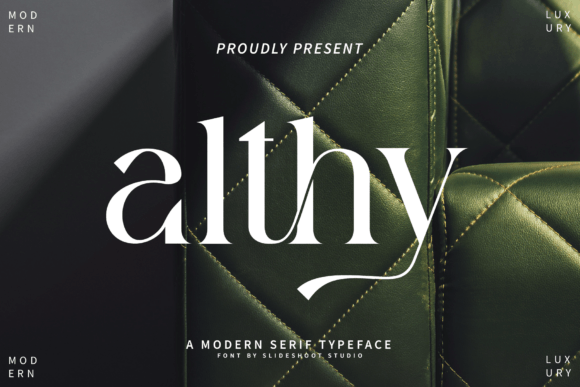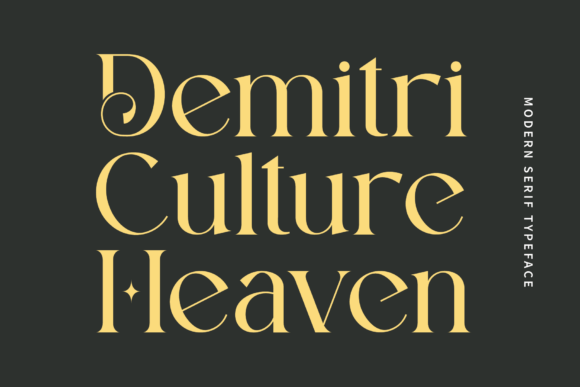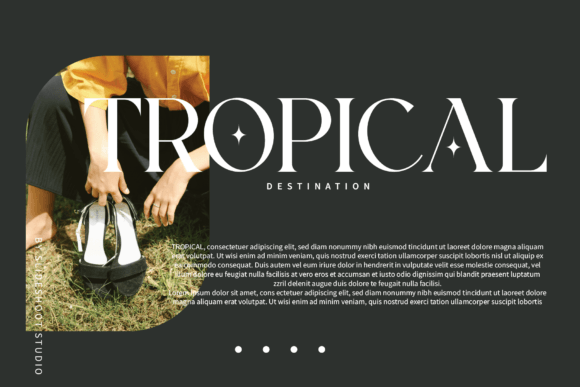
Althy Font: Elegant Serif Typography for Modern Logo Design
About the Althy Font
Presenting Althy Font, a unique and stylish typeface that will make your work stand out. Althy Serif is a modern and classy Serif font, he has a beautiful character. It is suitable to be combined with invitation card design, destroyer logo, film title, film name, business card, book title, name brand and various other designs. Althy Serif is a fine serif font that emits sophistication and elegance. Change and stubborn that makes this perfect font partner for any project.
Althy Serif’s elegant and sophisticated nature makes it ideal for headlines, branding projects requiring a touch of class, and high-end packaging design. Its strong character also works well for short-form text on posters or invitations. However, its refined detail may prove less effective for lengthy body text or UI elements where readability at smaller sizes is crucial.
Pairing Althy Serif with a clean sans-serif like Montserrat or a geometric sans-serif like Futura will create a strong visual contrast, balancing its formal elegance with a contemporary edge. For a warmer feel, consider pairing it with a script font like Playfair Display for invitations or branding materials where a more luxurious aesthetic is desired.
Althy Serif projects a confident, sophisticated personality, suitable for brands aiming for a premium or timeless image. Avoid using it in contexts requiring a playful or informal tone.
Althy Font Usage Examples
Althy Font Example